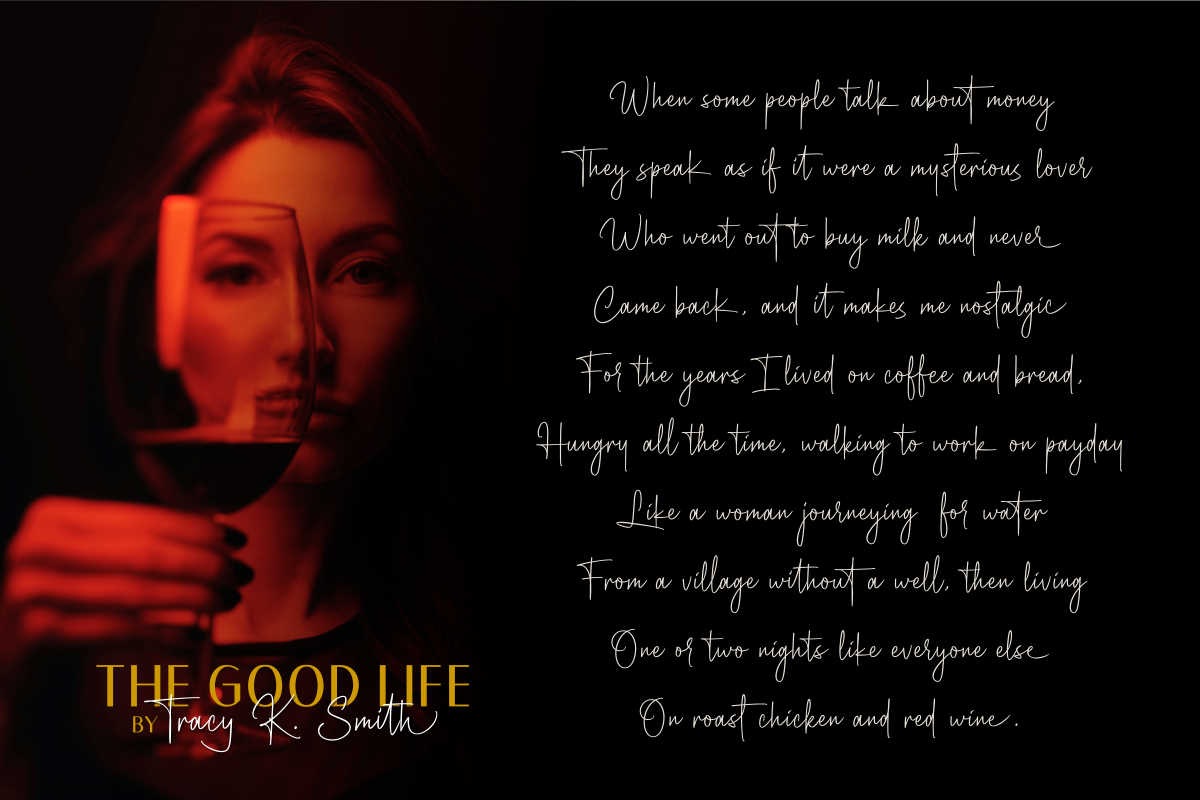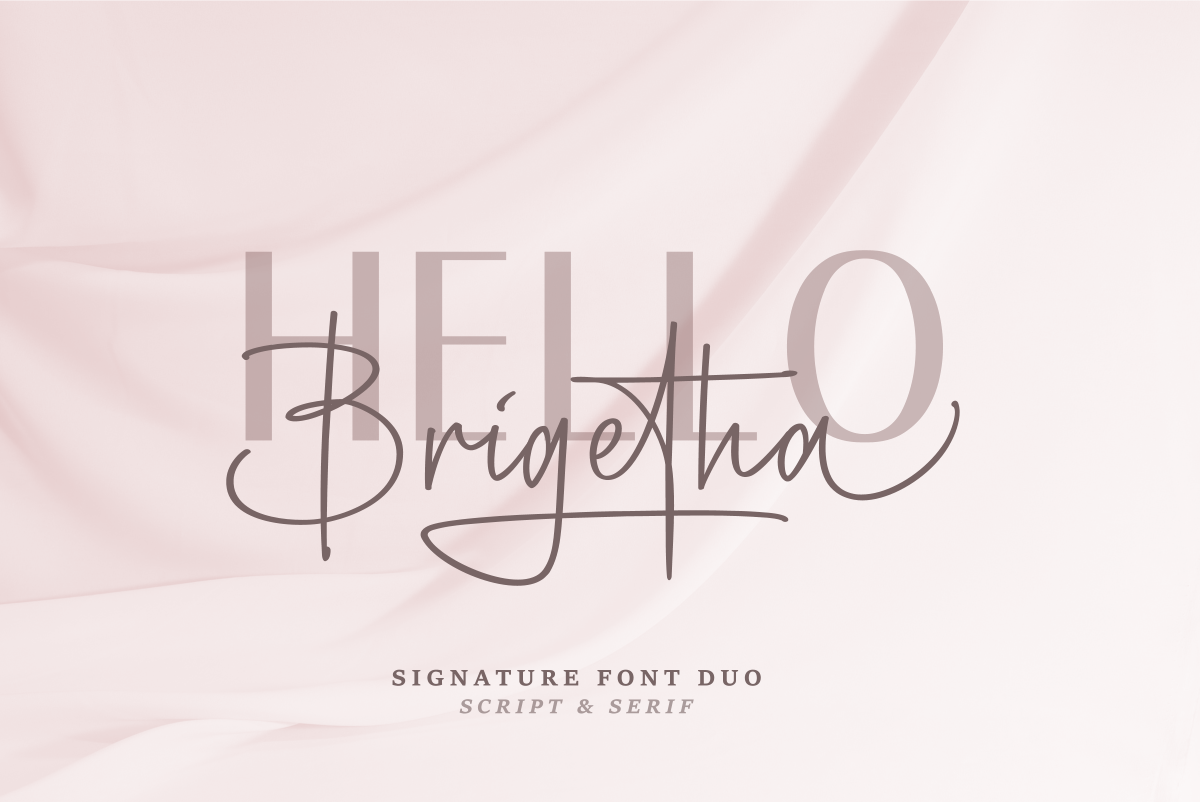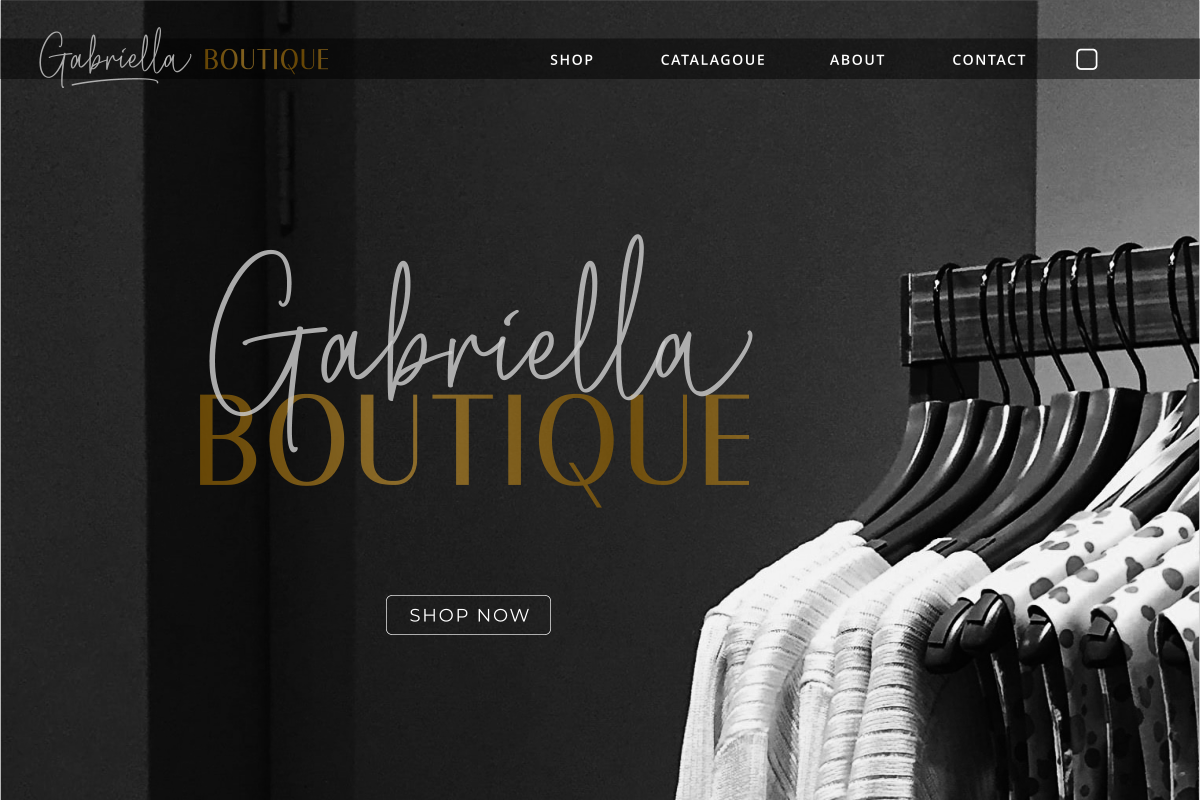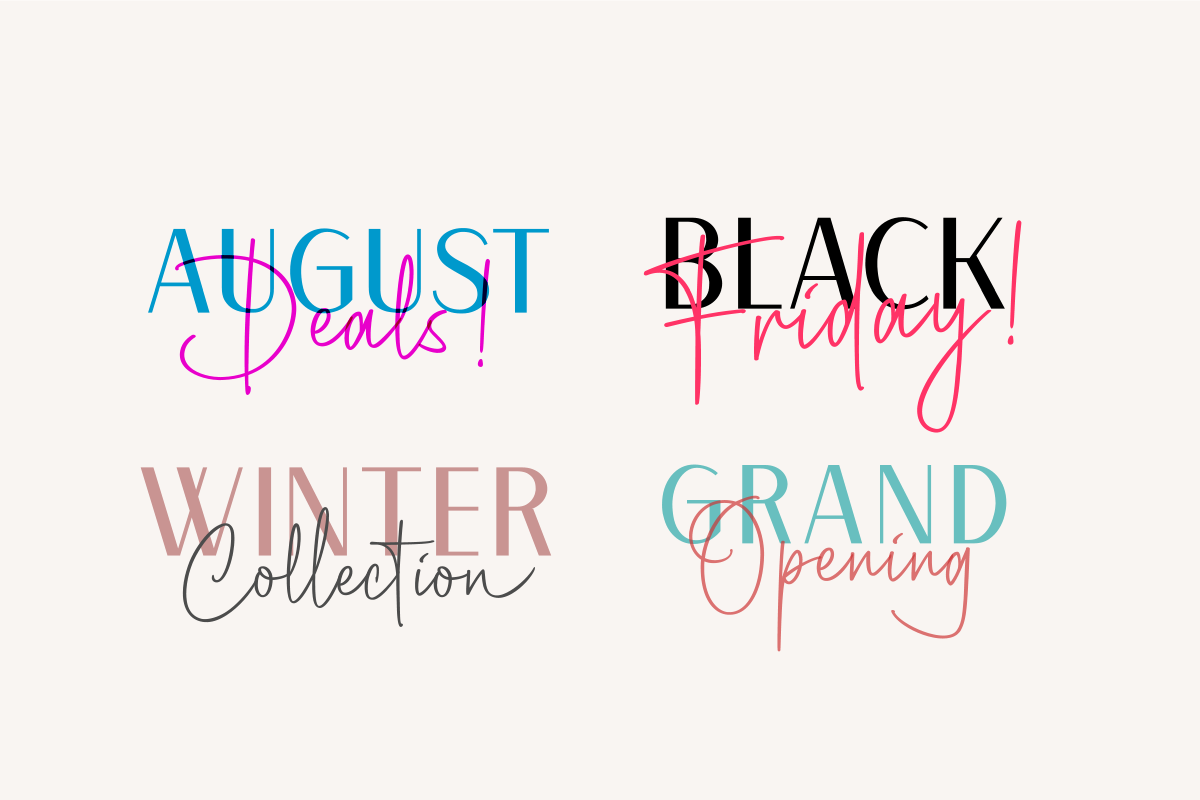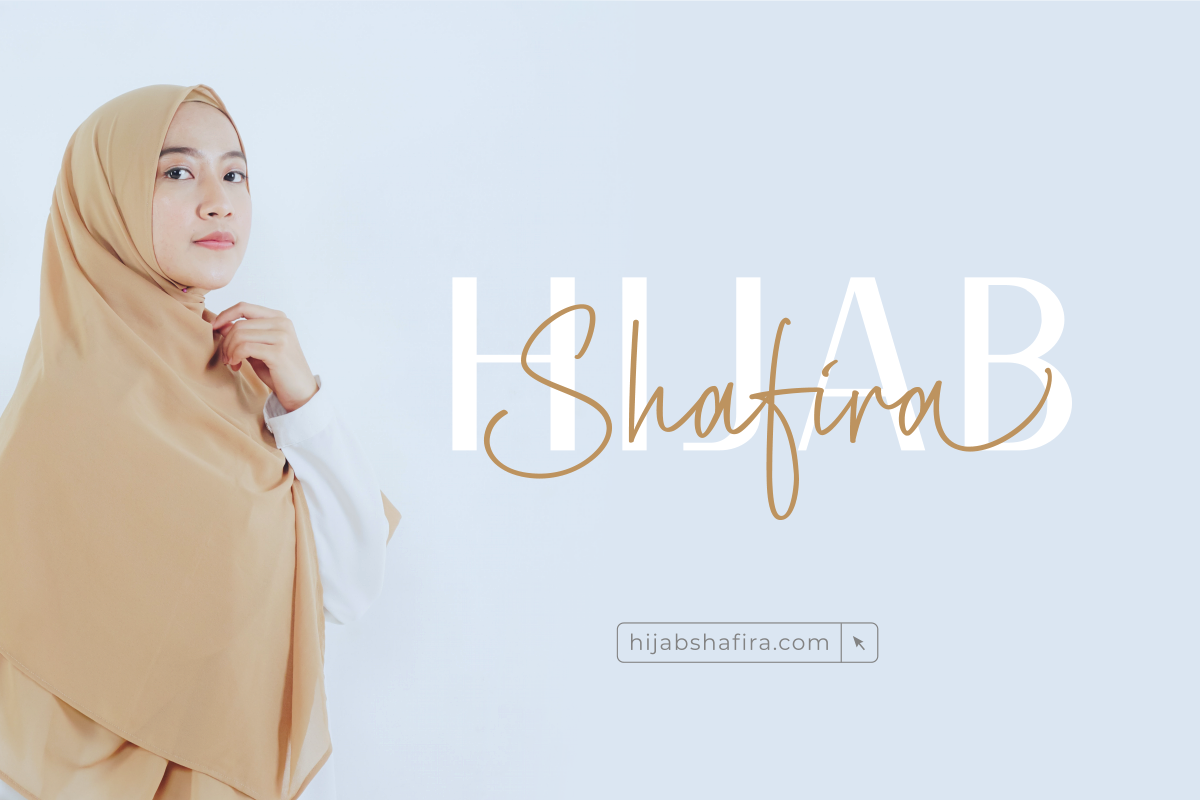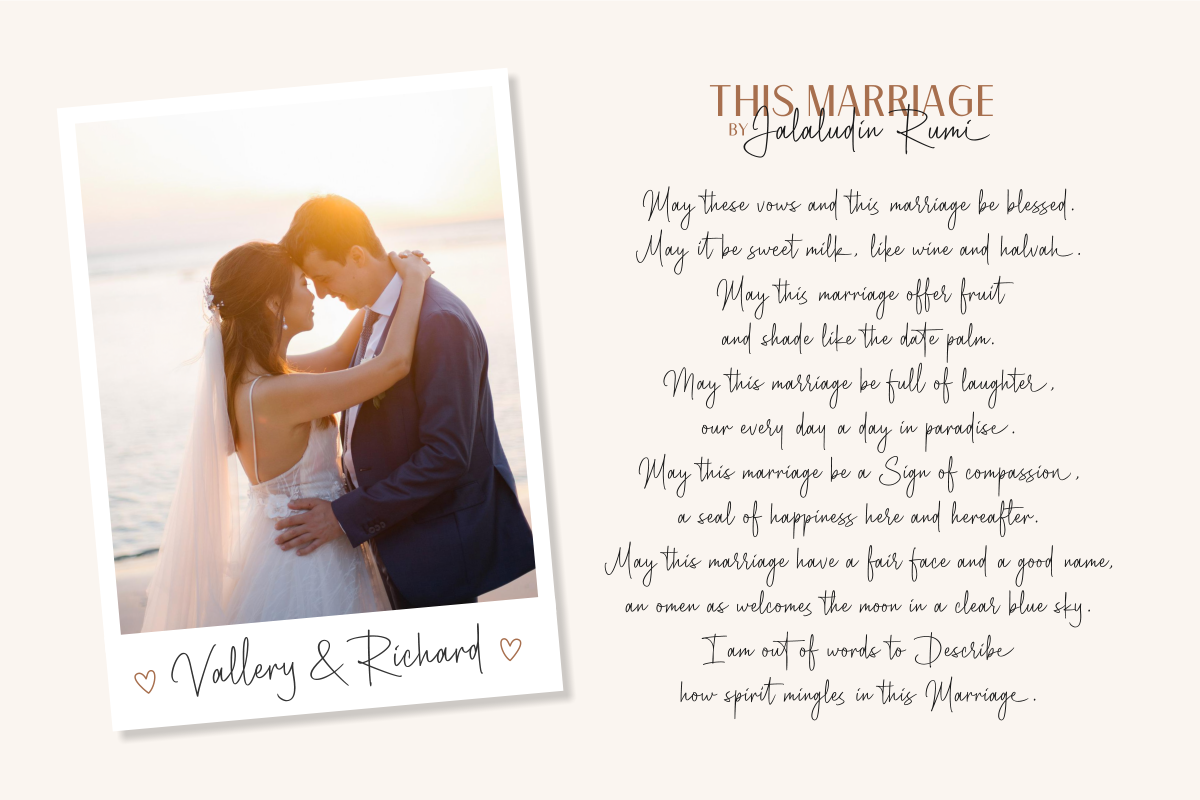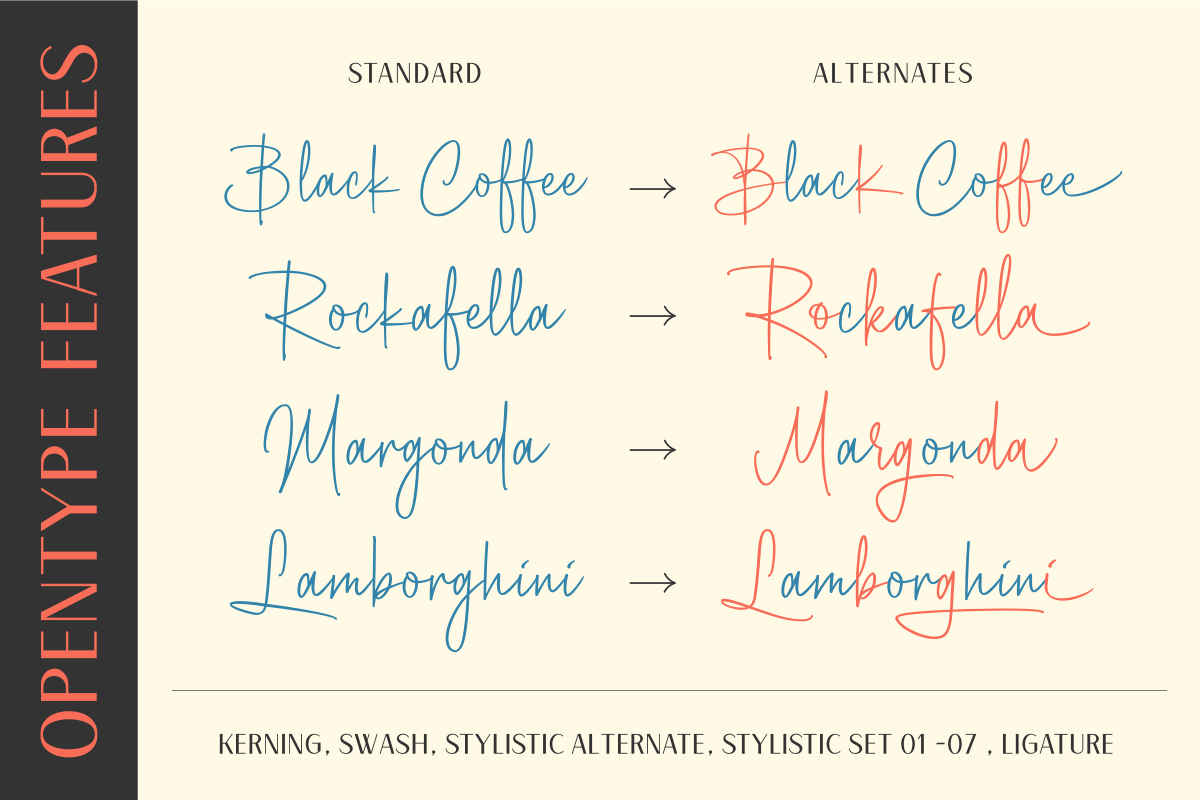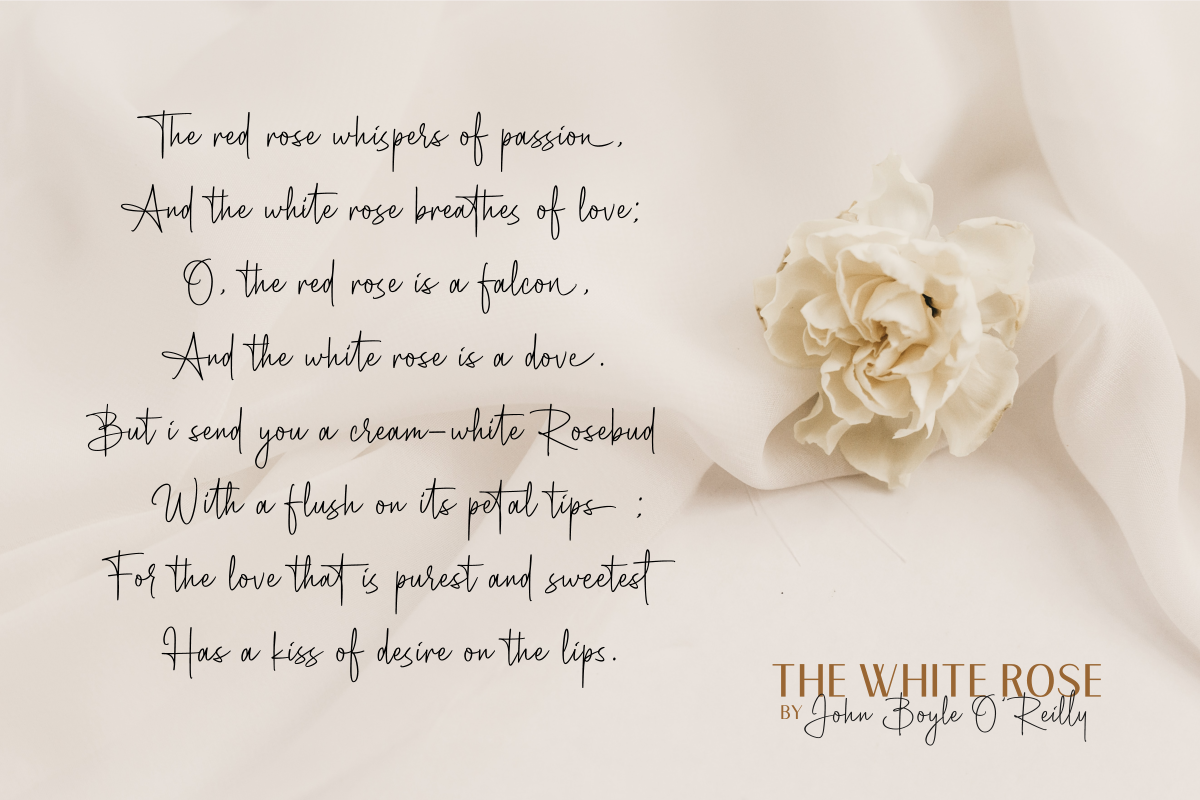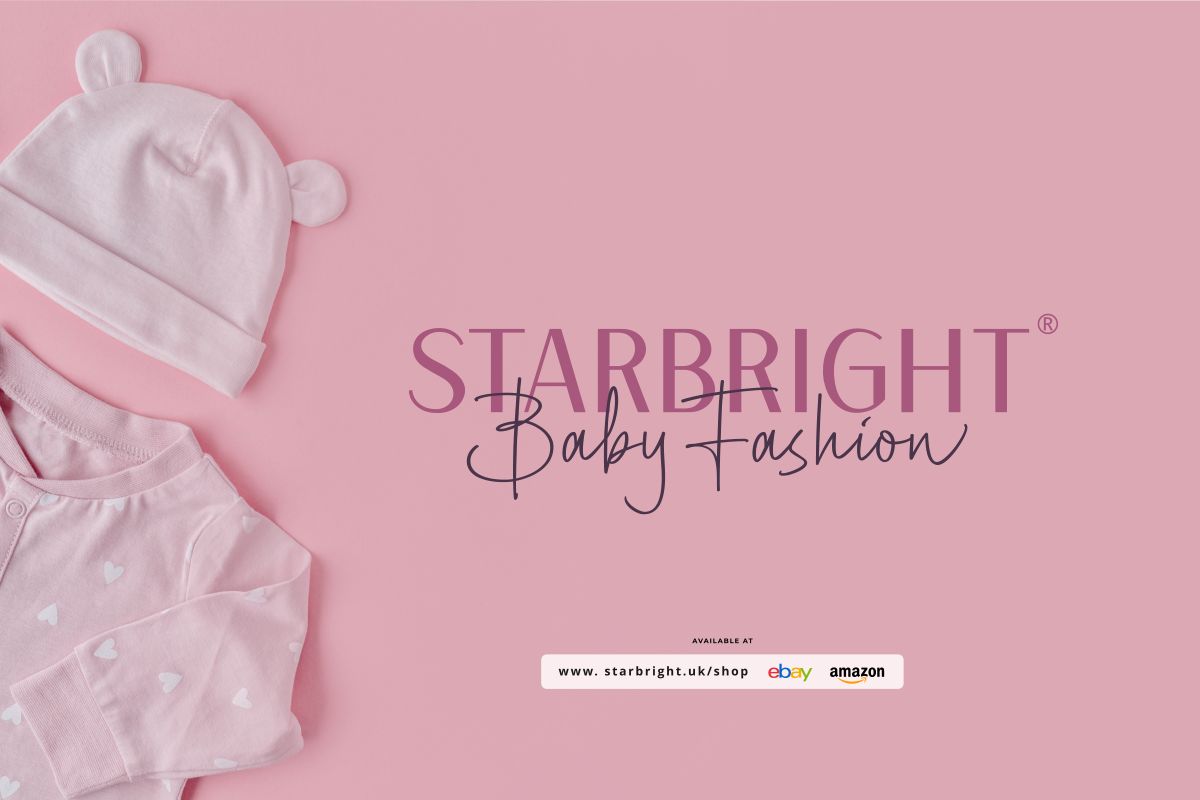
Brigetha Font Duo - Script & Serif
A modern wedding cursive font is a great way to add a touch of elegance to your wedding invitations, signature logos, place cards, and other design purposes. These font is a lovely collectible pairing duo. An elegant serif and cursive font that’s great for delivering any message with authenticity and charm. It will elevate a wide range of crafting ideas, from cards, to branding, labels and much more.